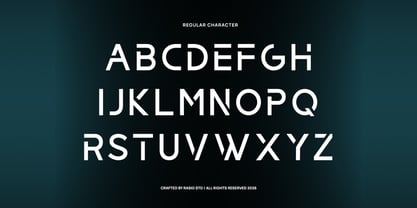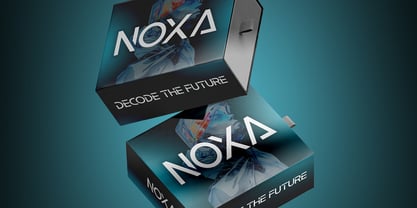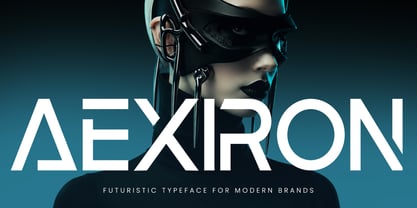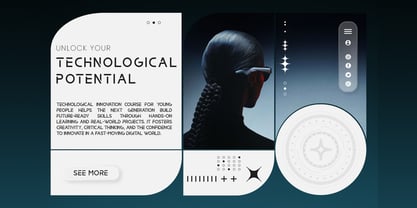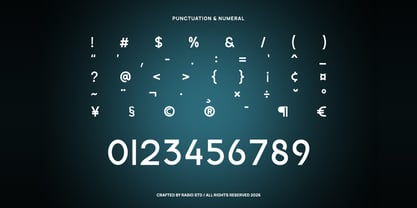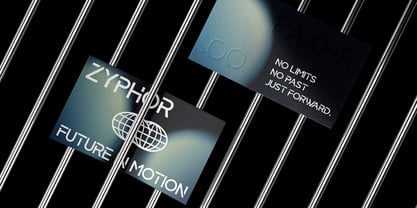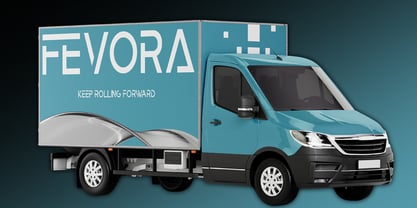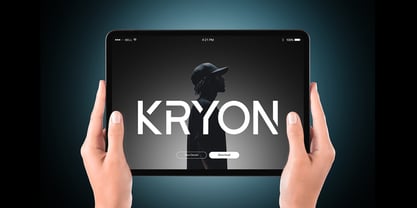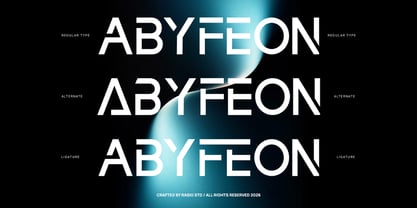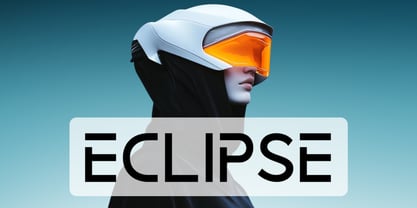
Aexiron
The Aexiron Font Family was designed by Fajar Indra and published by Rasio Studio. Aexiron contains 1 styles. More about this family
Aexiron Futuristic Tech Sans Serif showcases a sharp, modern typeface built with clean geometric construction and distinctive futuristic cuts that create a strong technological identity. The letterforms feature precise angles, unique character details, and balanced spacing, delivering a sleek and high-impact visual presence across digital and print media. This font includes uppercase, lowercase, numerals, punctuation alternates, and ligatures.
Relevance and Use Cases is perfect for technology branding, startup identity, UI/UX interfaces, digital products, app design, web layouts, gaming visuals, sci-fi posters, innovation campaigns, corporate presentations, advertising graphics, and modern editorial design that requires a clean, futuristic, and high-impact typographic presence.